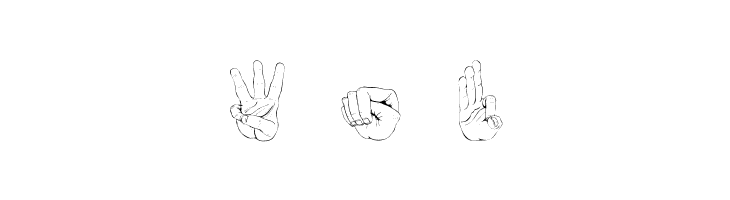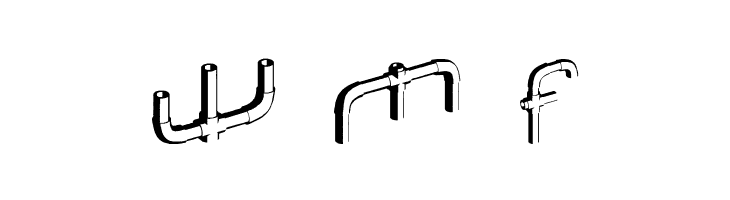
A graffiti-style font using hand gestures to represent letters and numbers.
A detailed hand-illustrated font representing the German finger alphabet.
A futuristic, tech-inspired font with bold, tubular shapes and angular elements.